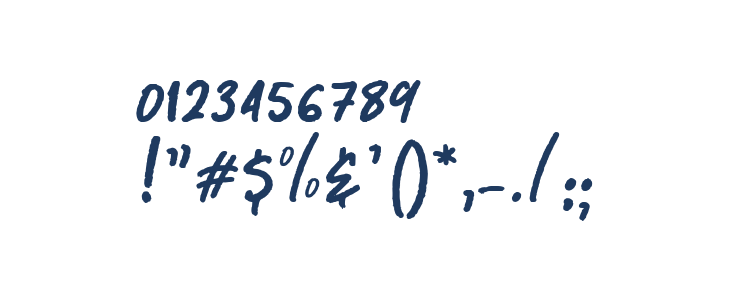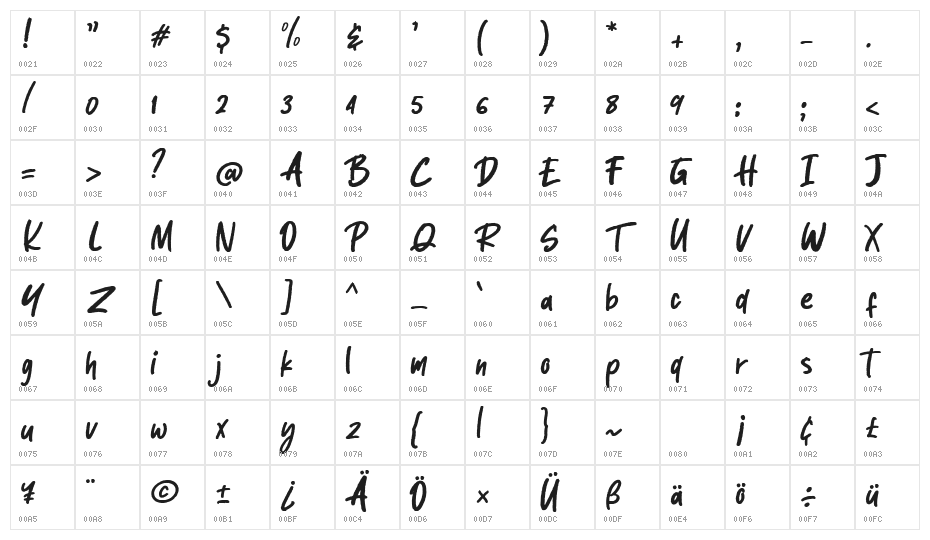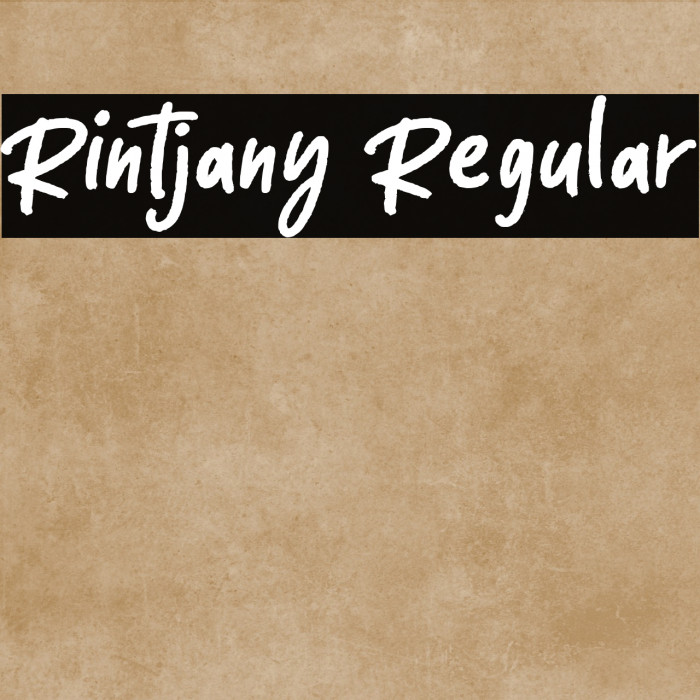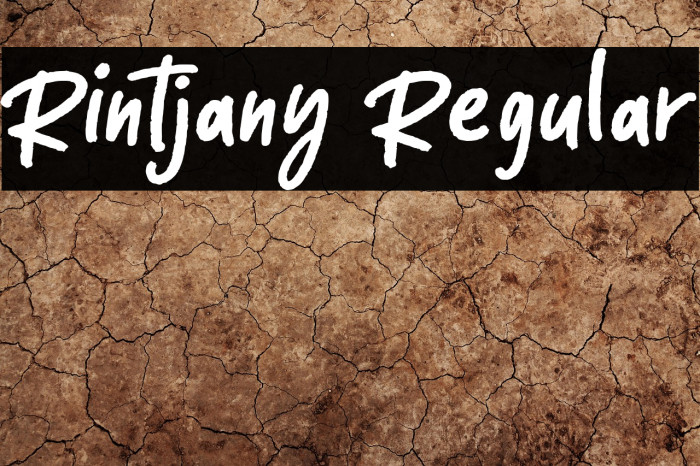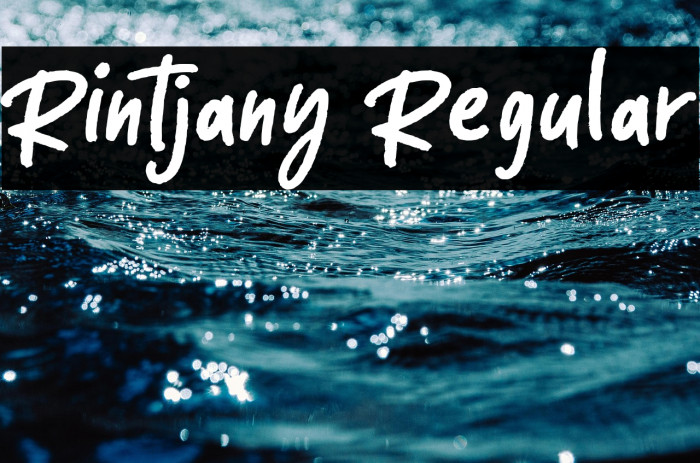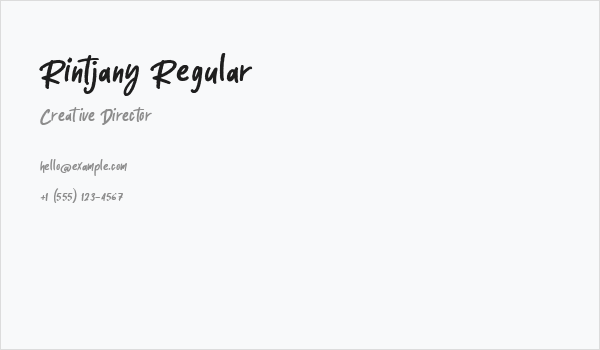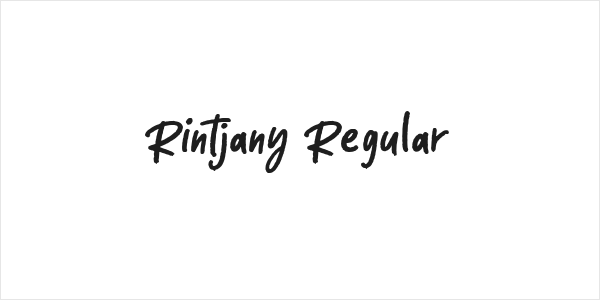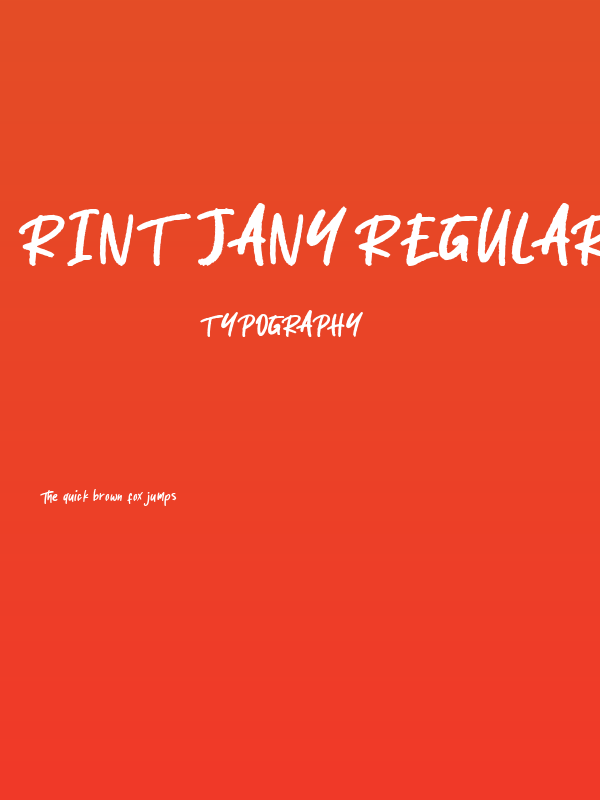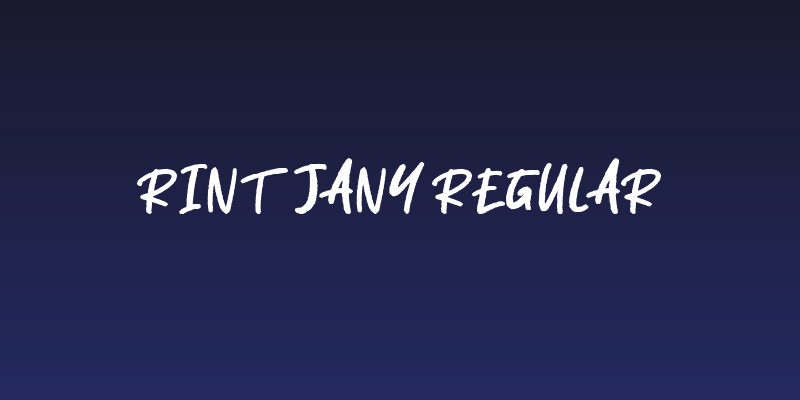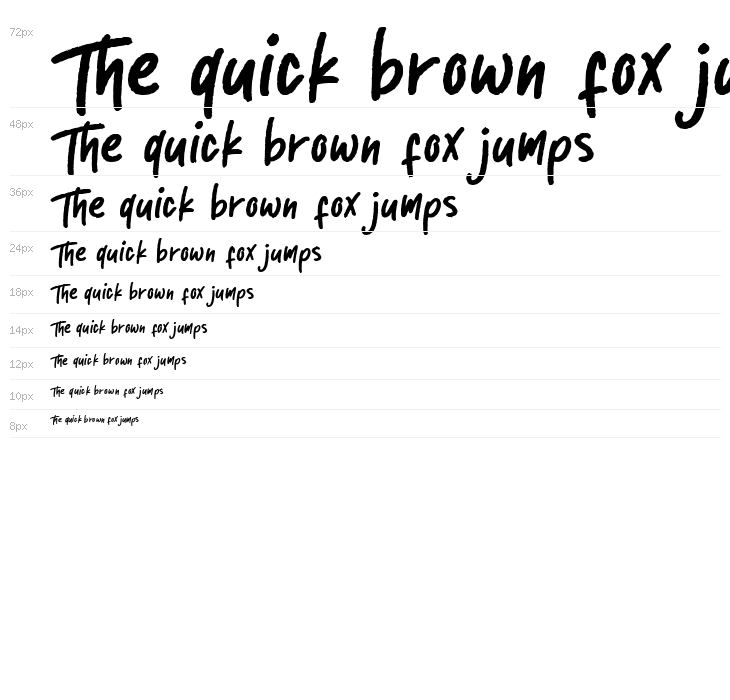
Rintjany Regular Font
Rintjany Regular Description
This font exhibits a dynamic and energetic handwritten style, characterized by its bold and expressive strokes. The letters are slightly slanted, giving a sense of movement and spontaneity. The uppercase and lowercase letters maintain a consistent flow, with rounded edges and varying stroke widths that add to its casual and approachable appearance. The numerals and special characters are crafted with the same lively flair, ensuring uniformity across all glyphs. This font is perfect for projects that require a personal touch, such as invitations, greeting cards, or branding materials that aim to convey warmth and friendliness.
| Overall Style | Casual, Energetic |
| Proposed Projects | Ideal for invitations, greeting cards, personal branding, and creative projects requiring a personal touch. |